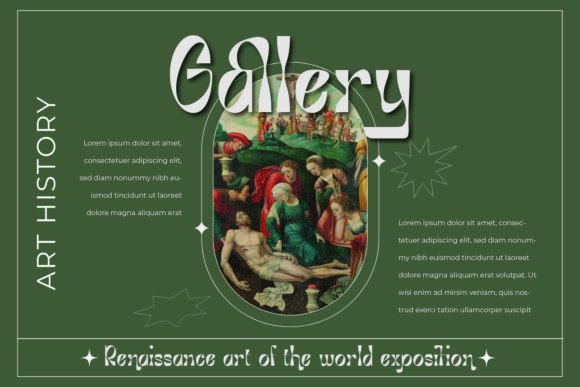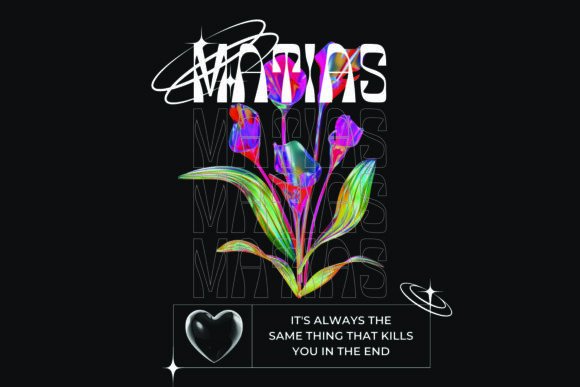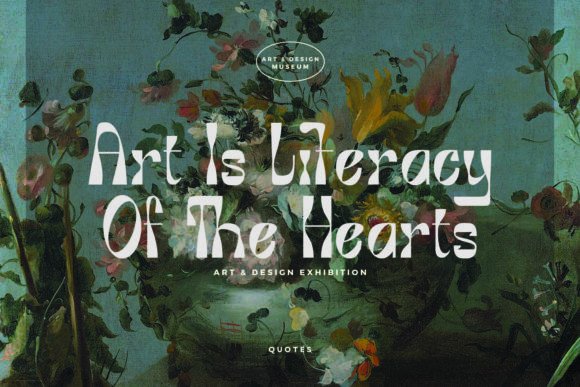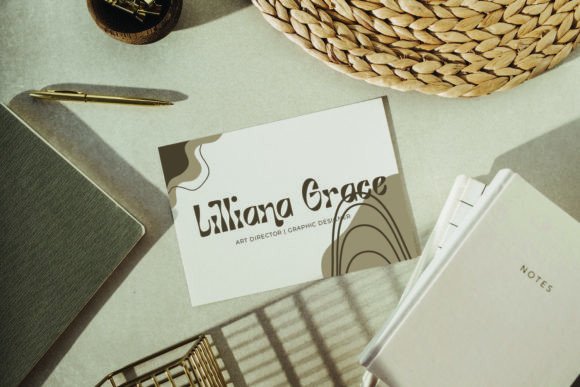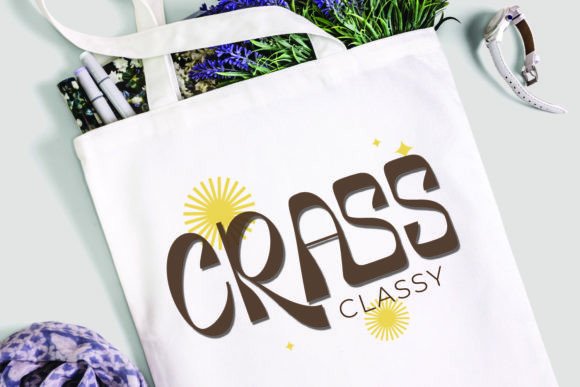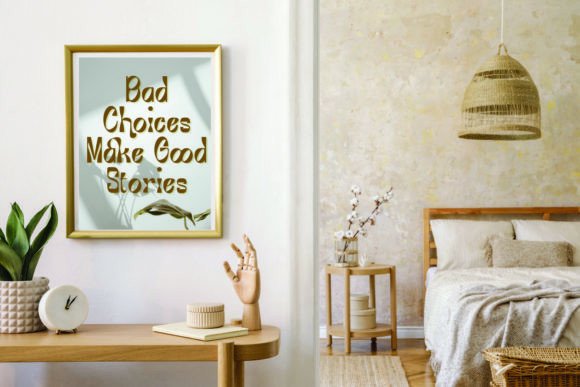
Introducing Grangeus: The Ultimate Creative Display Font for Designers and Crafters
Are you tired of using the same old fonts for your designs? Look no further! Grangeus is a game-changing, creative display font that strikes the perfect balance between eye-catching design and flawless legibility. This versatile typeface is perfect for designers, crafters, and anyone looking to elevate their visual projects.
What Makes Grangeus Special?
Grangeus boasts an impressive range of features that set it apart from other fonts. The alternative characters are divided into several features, including Stylistic Sets, Stylistic Alternates, and Ligature. These features can be accessed using Open Type savvy programs such as Adobe Illustrator, Adobe InDesign, Adobe Photoshop, Corel Draw X version, and Microsoft Word.
Unlock the Full Potential of Grangeus with Open Type Features
With Grangeus, you can unlock a world of creative possibilities using Open Type features. The font includes a range of alternates and ligatures that can be easily accessed using compatible software. Whether you’re designing a logo, creating a poster, or crafting a social media graphic, Grangeus has got you covered.
PUA Unicode: Easy Access to Alternate Characters
Grangeus has been specially coded with PUA unicode, allowing you to access all the alternate characters with ease. This means you can use the font to its full potential, without needing additional design software. The PUA encoded characters make it simple to switch between different alternates, giving you complete creative control.
What’s Included with Grangeus?
- Tons of glyphs to experiment with
- Alternates and Ligatures for added creativity
- PUA Encoded Characters for easy access
- Multilingual Support for global designers and crafters
Why Choose Grangeus for Your Design Projects?
Grangeus offers the perfect blend of style, creativity, and functionality. With its impressive range of features, ease of use, and compatibility with popular software, this font is ideal for:
- Web design
Grangeus is a versatile and creative display font that’s perfect for designers and crafters looking to elevate their visual projects. With its impressive range of features, ease of use, and compatibility with popular software, this font is a must-have for anyone looking to add a touch of style and sophistication to their designs. Get ready to unleash your creativity with Grangeus!